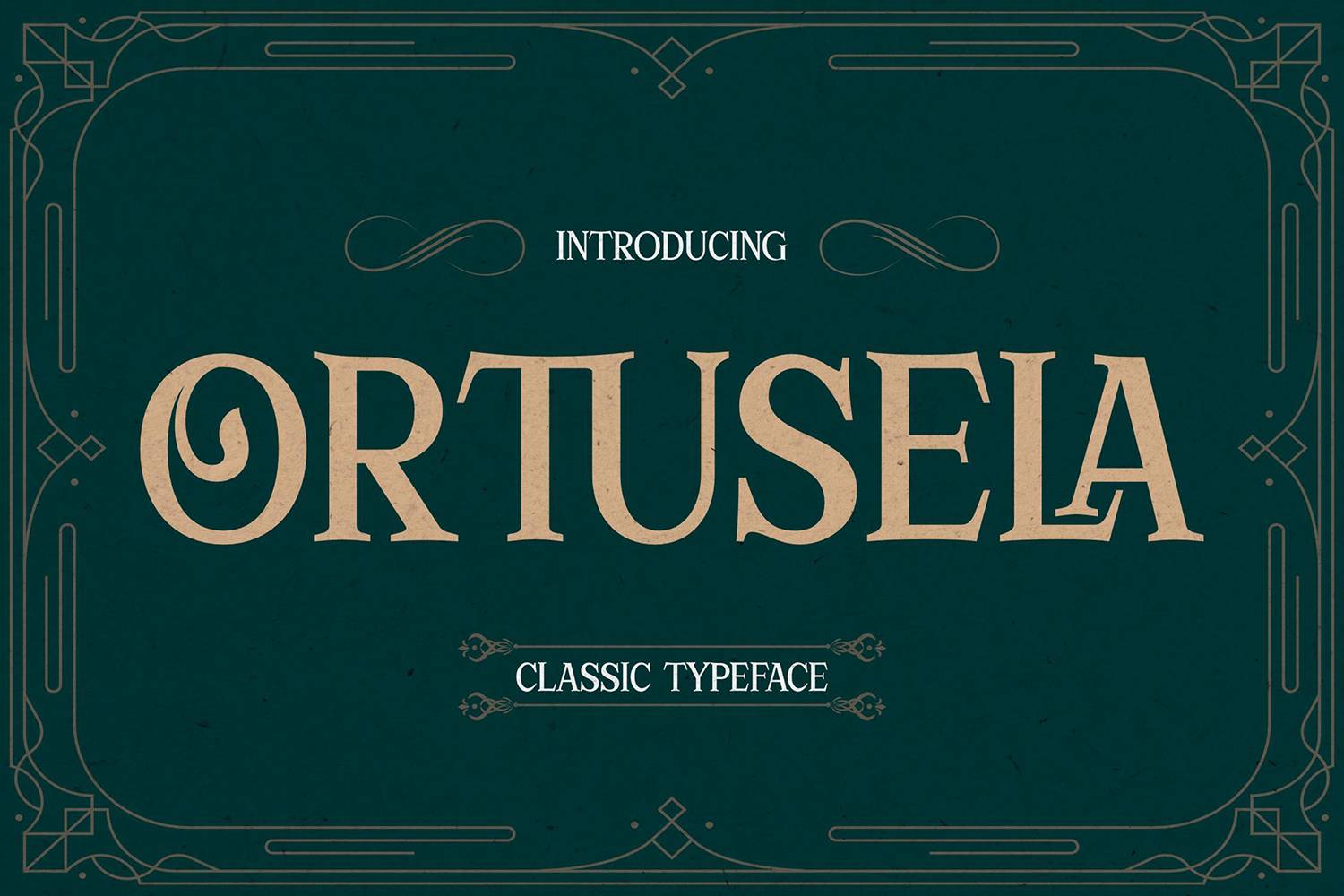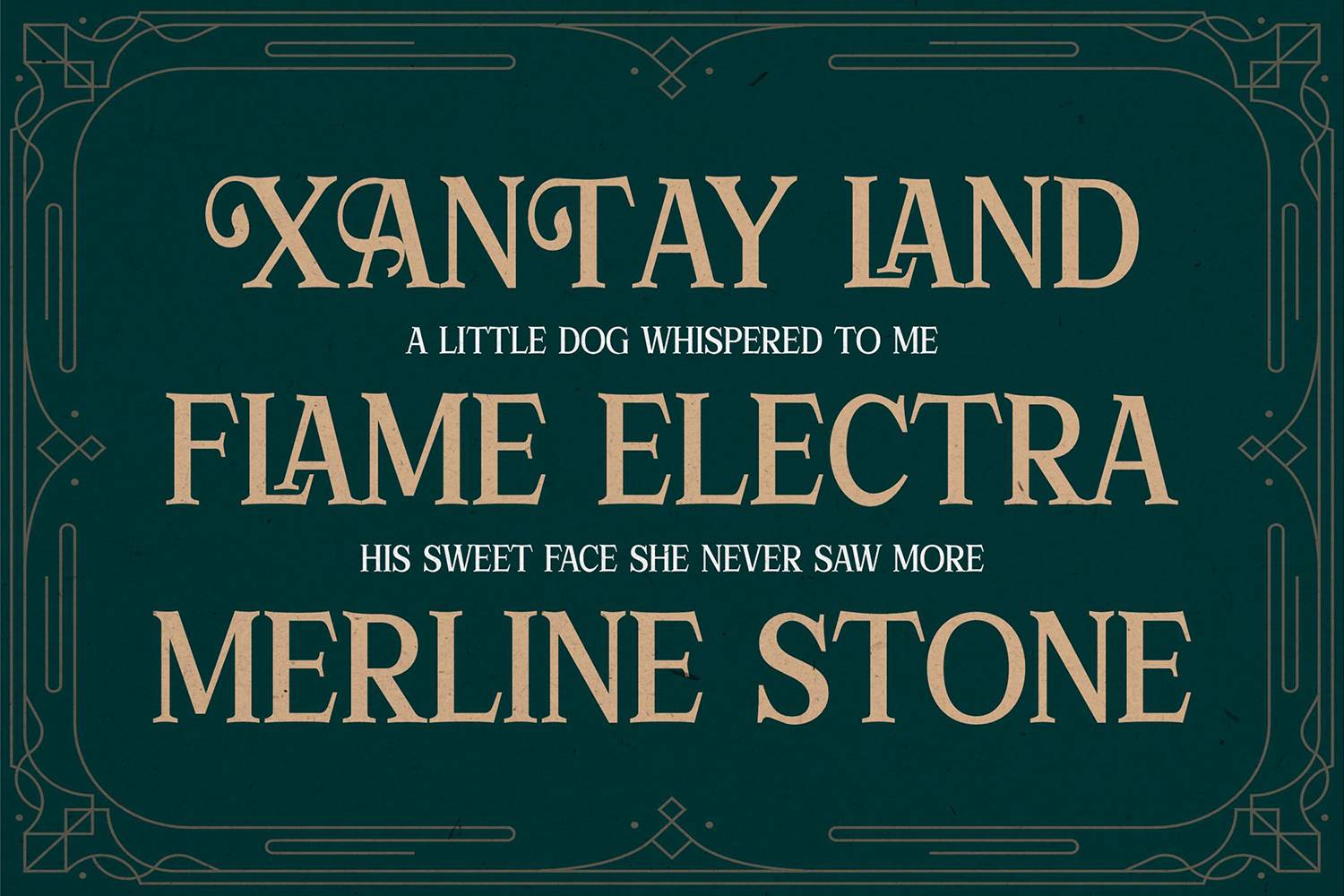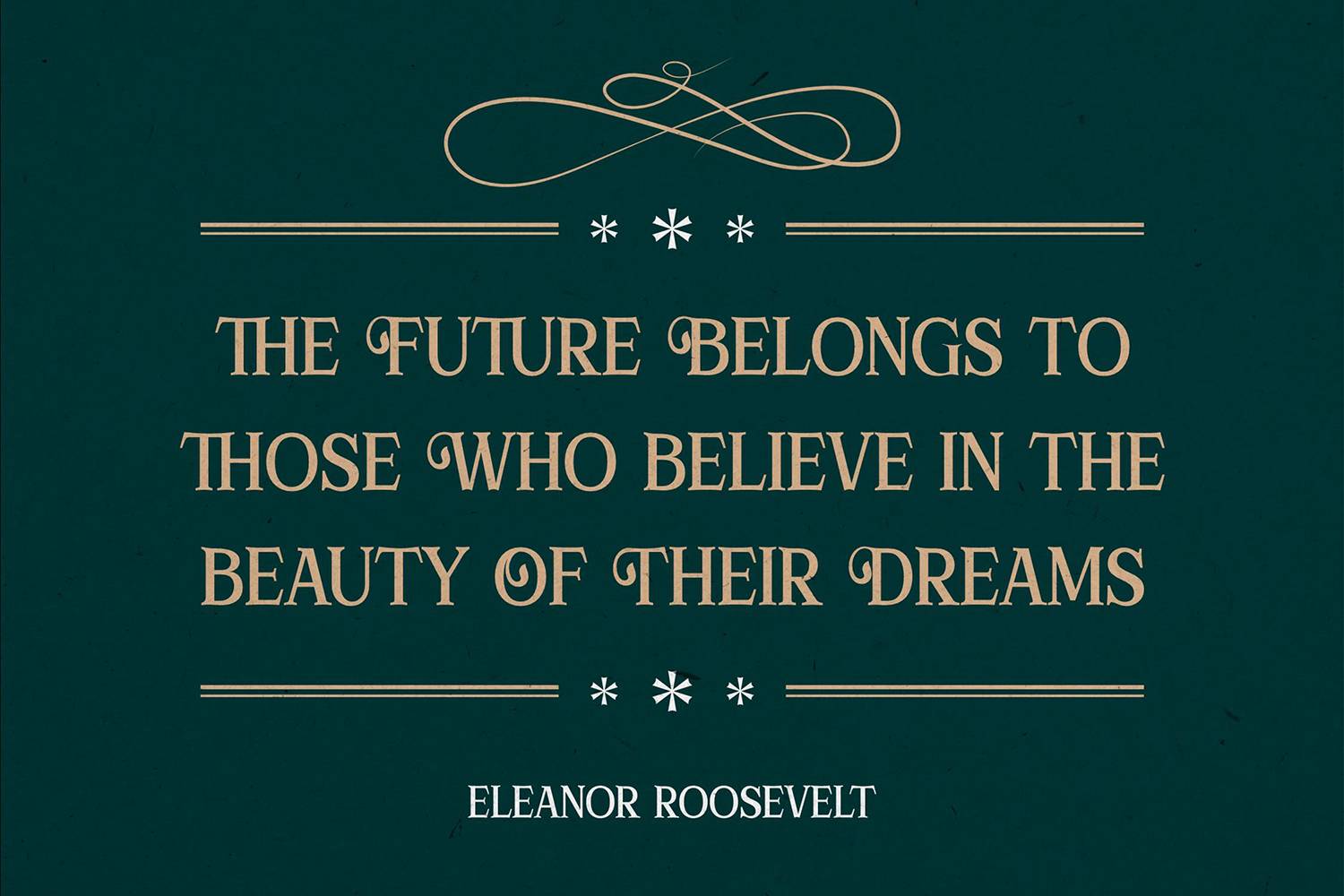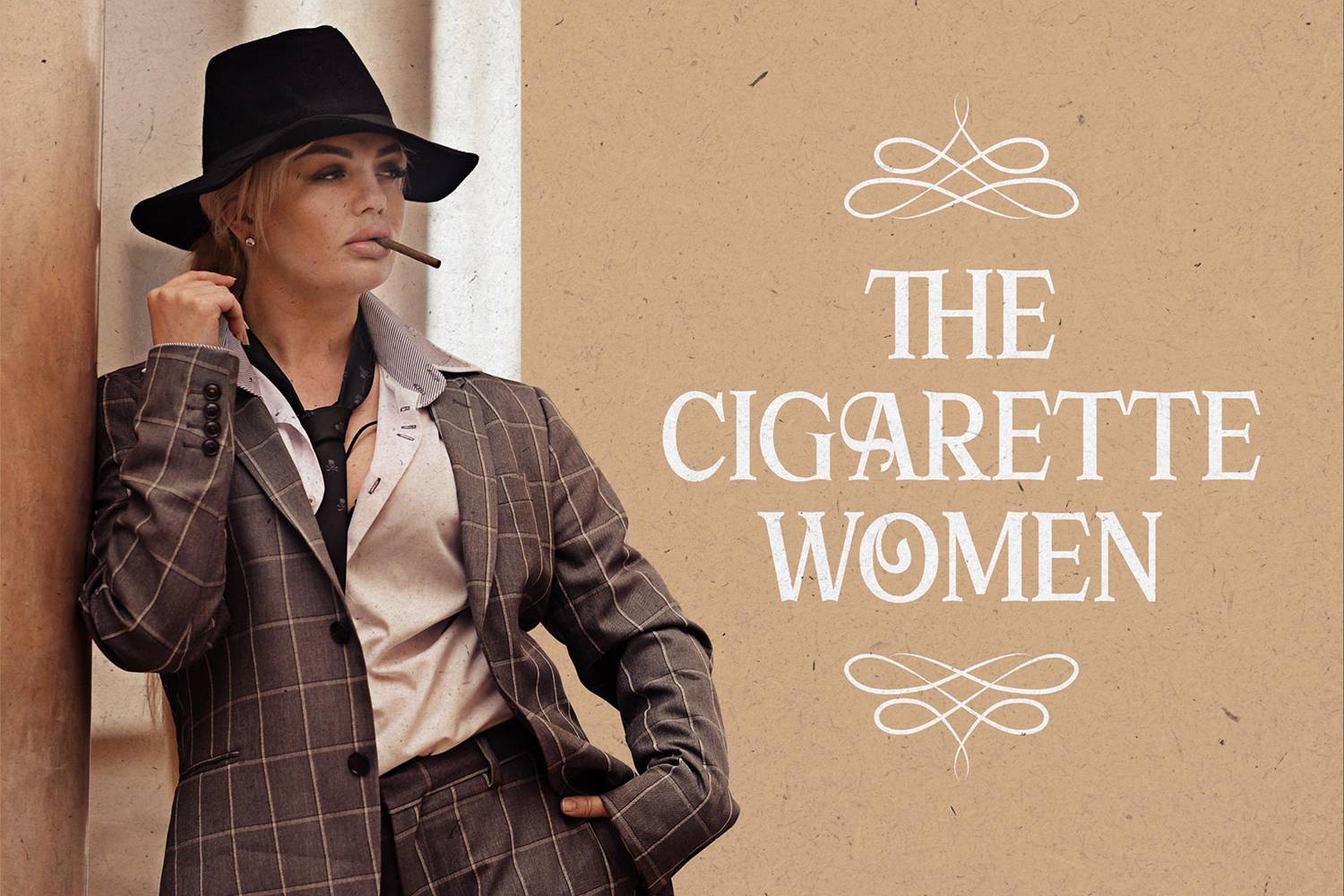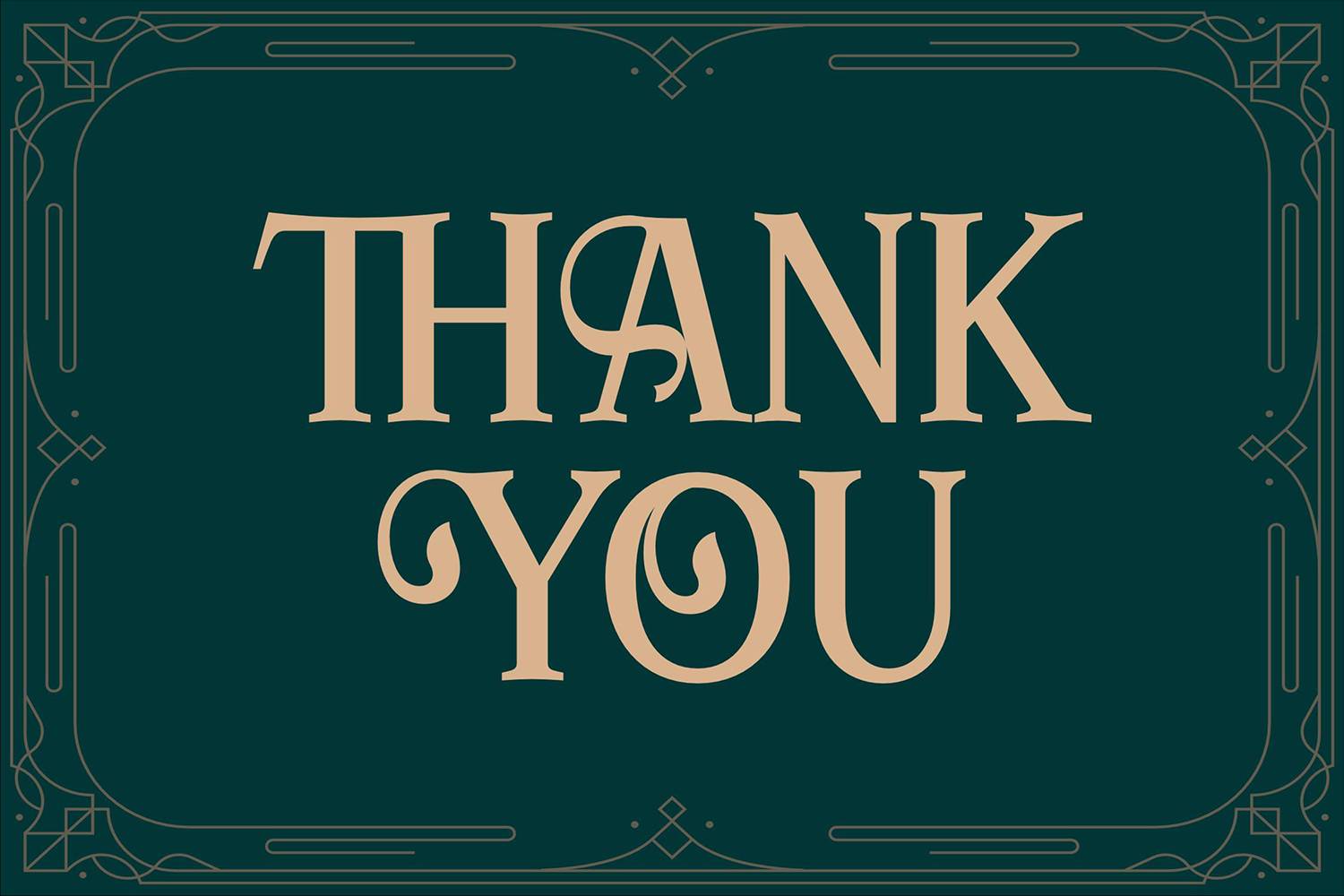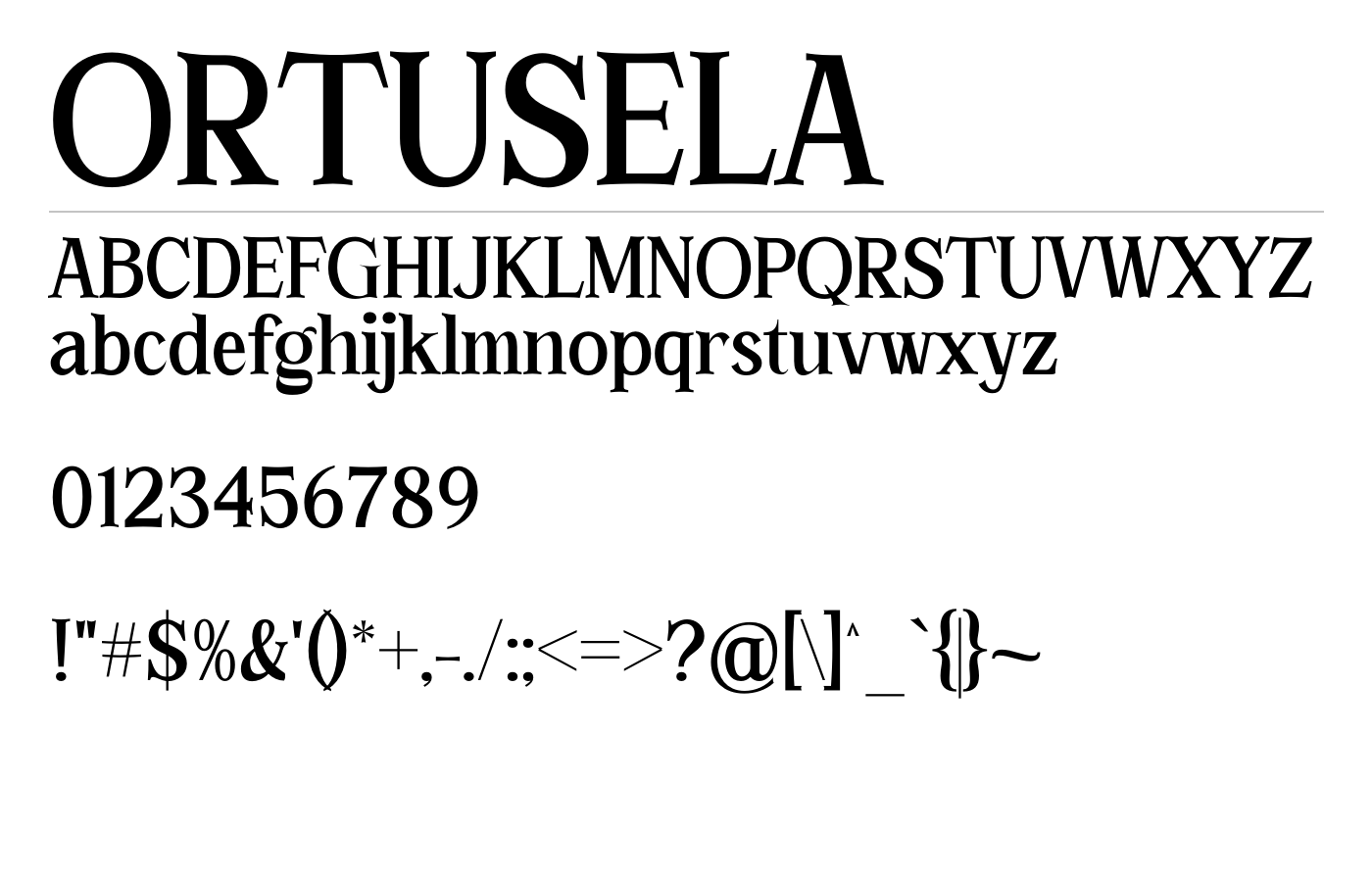
Ortusela is a refined serif font with a classic, elegant feel characterized by its moderate contrast and slightly condensed letterforms. It features distinct old-style elements such as bracketed serifs, double-story lowercase letters, and traditional proportions, making it ideal for sophisticated editorial projects, luxury branding, and headlines where timeless readability and style matter. Its balanced design lends a serious yet approachable personality, perfect for upscale and professional visual identities.
Ortusela Font
About Ortusela Font